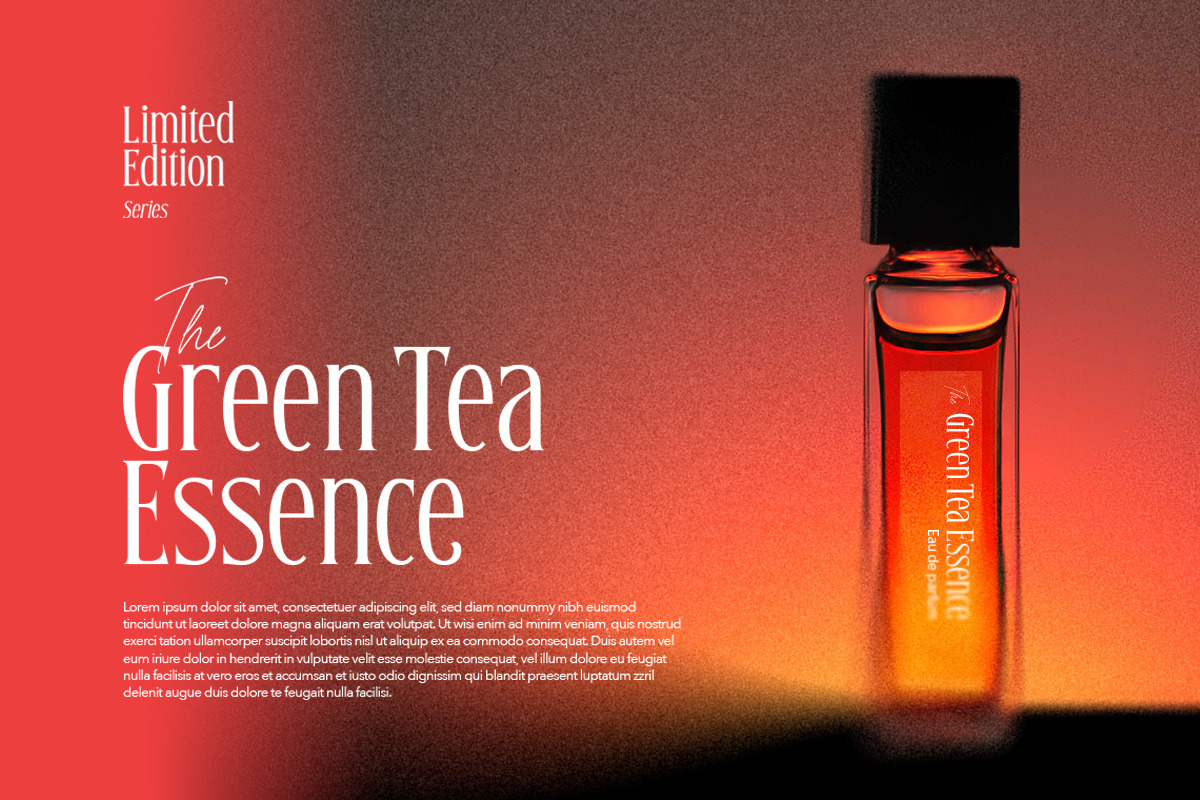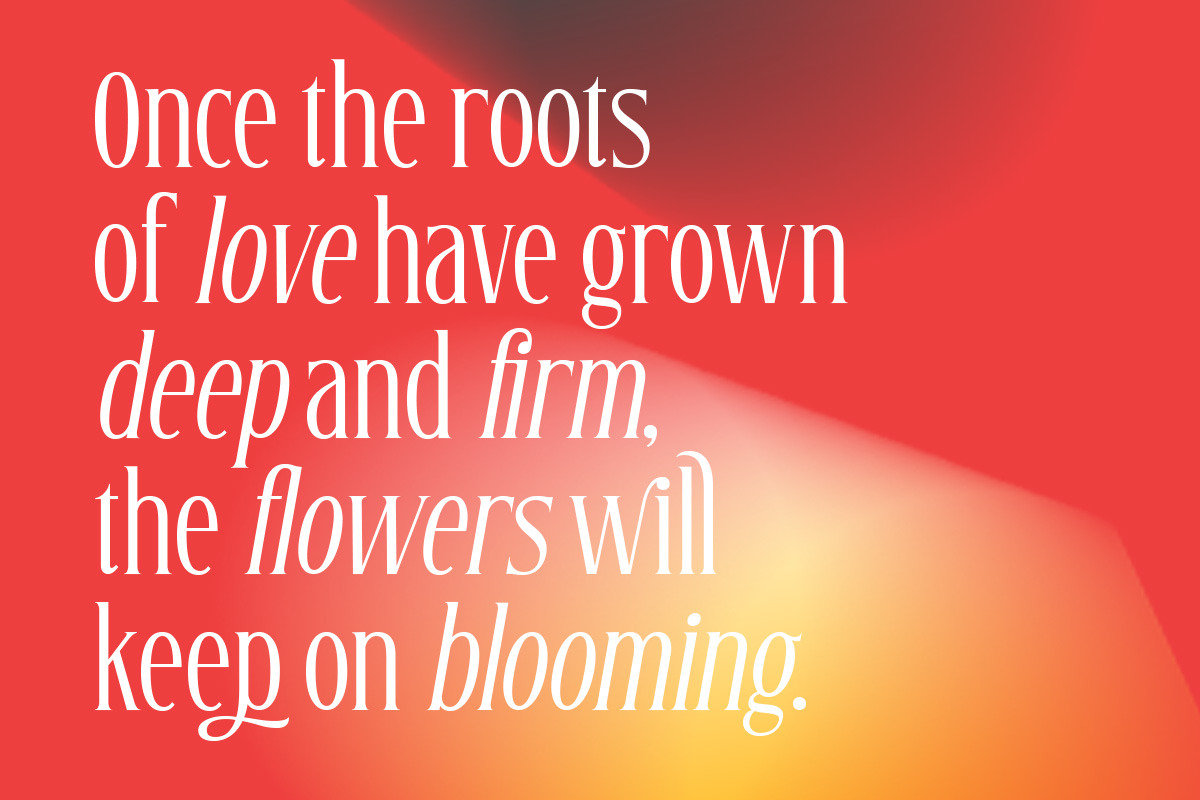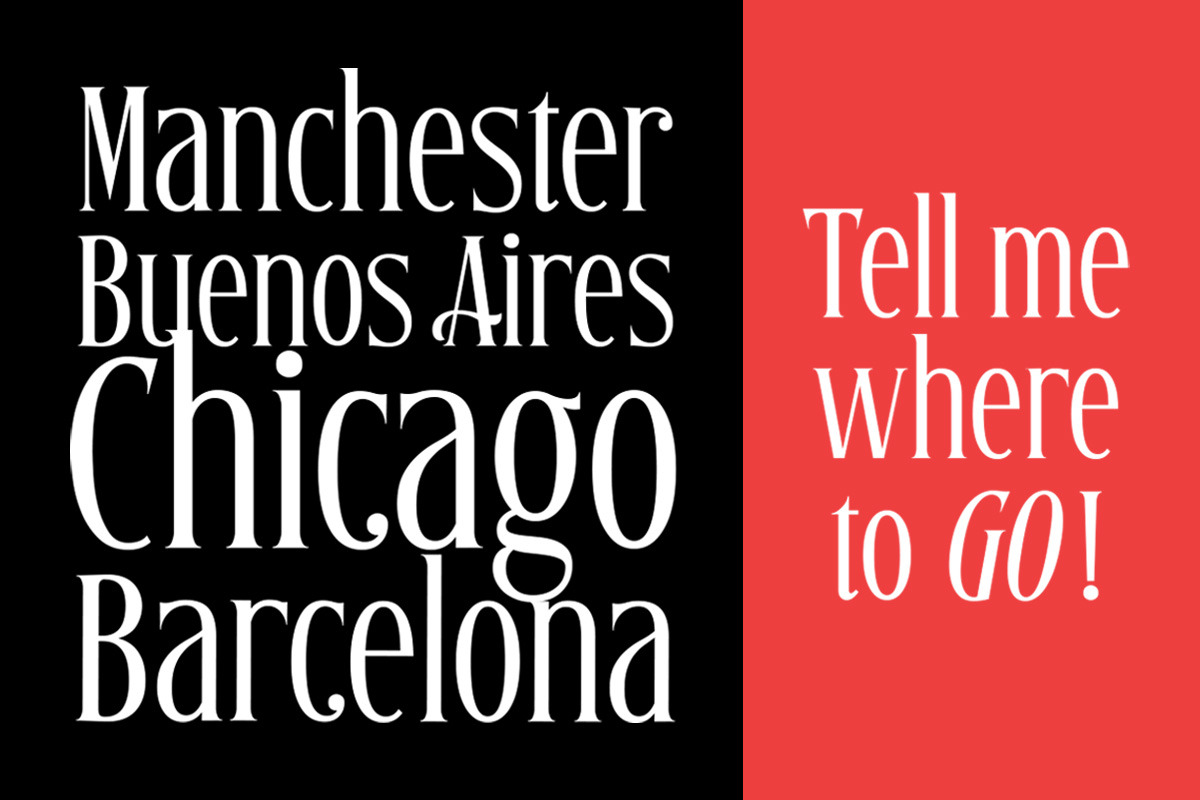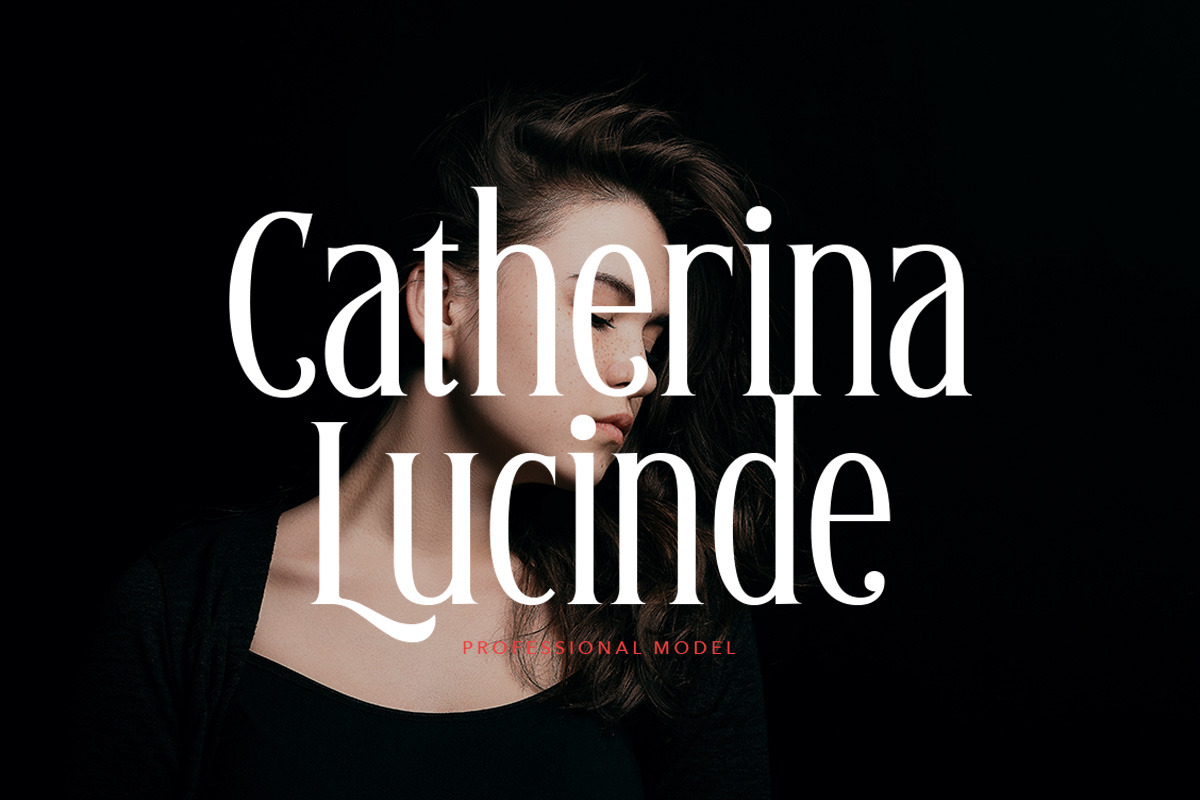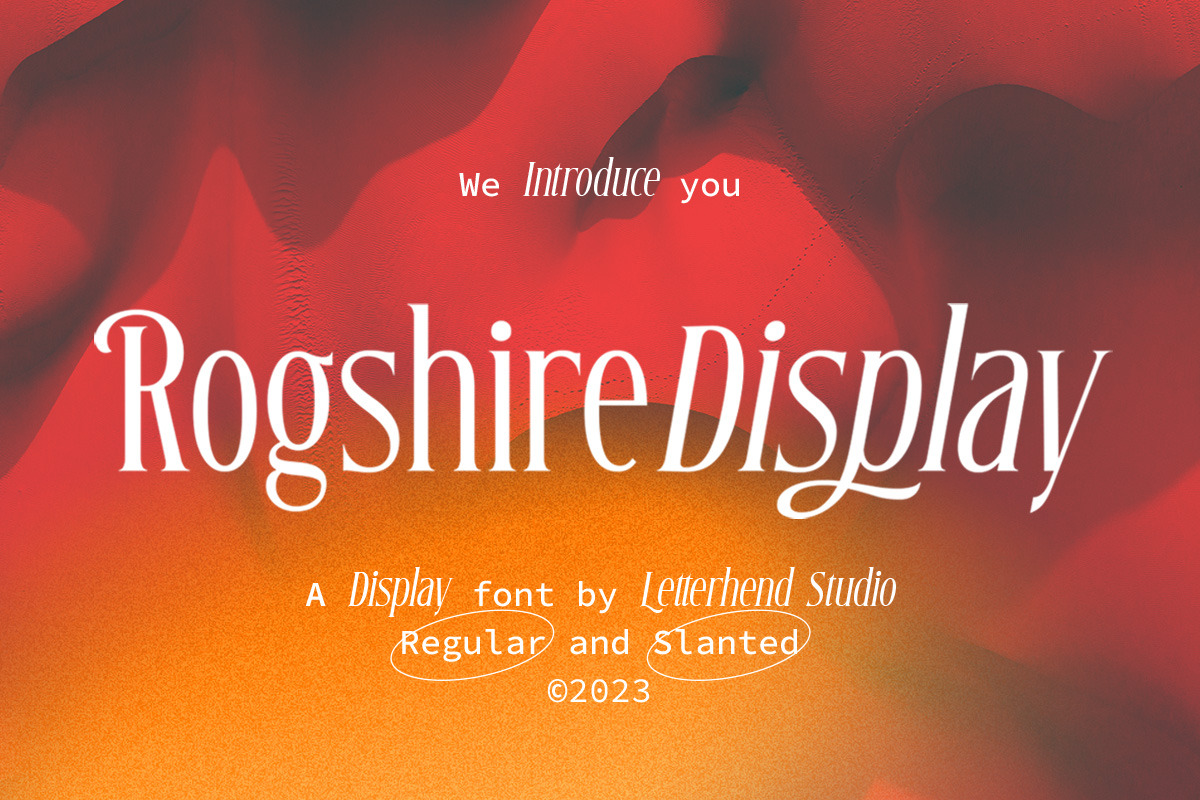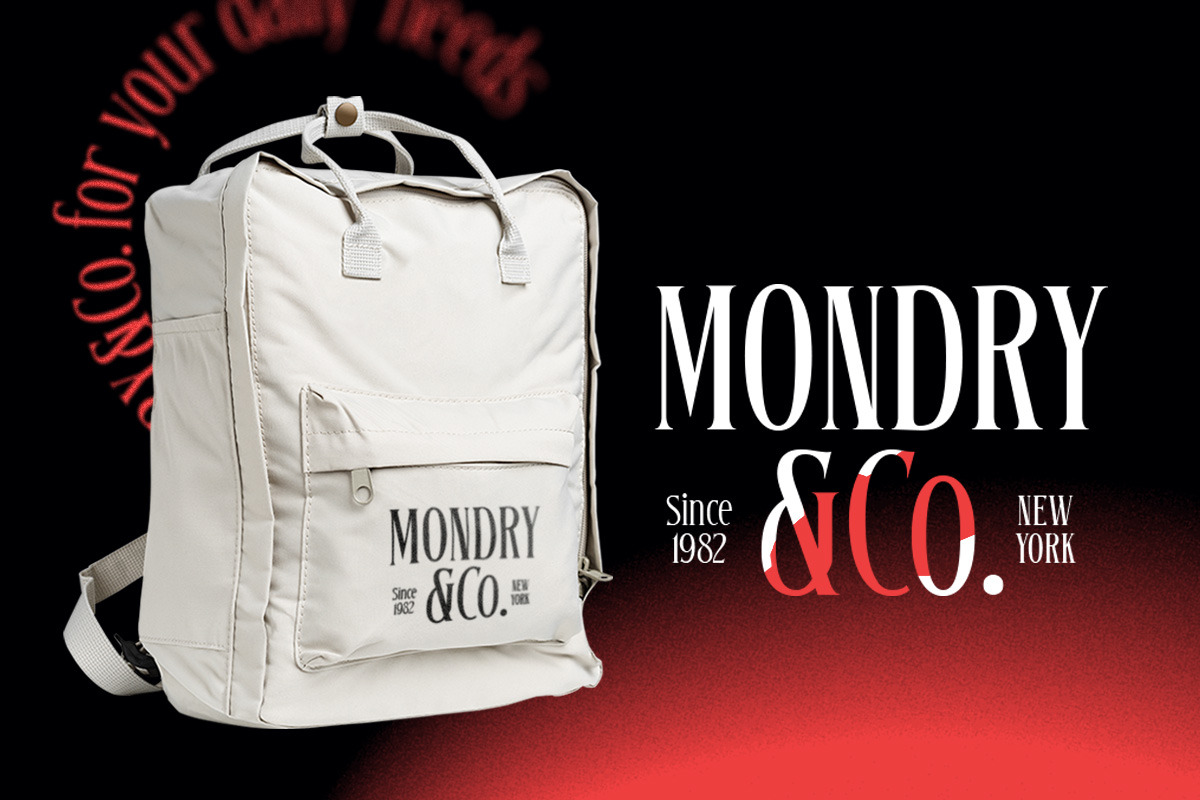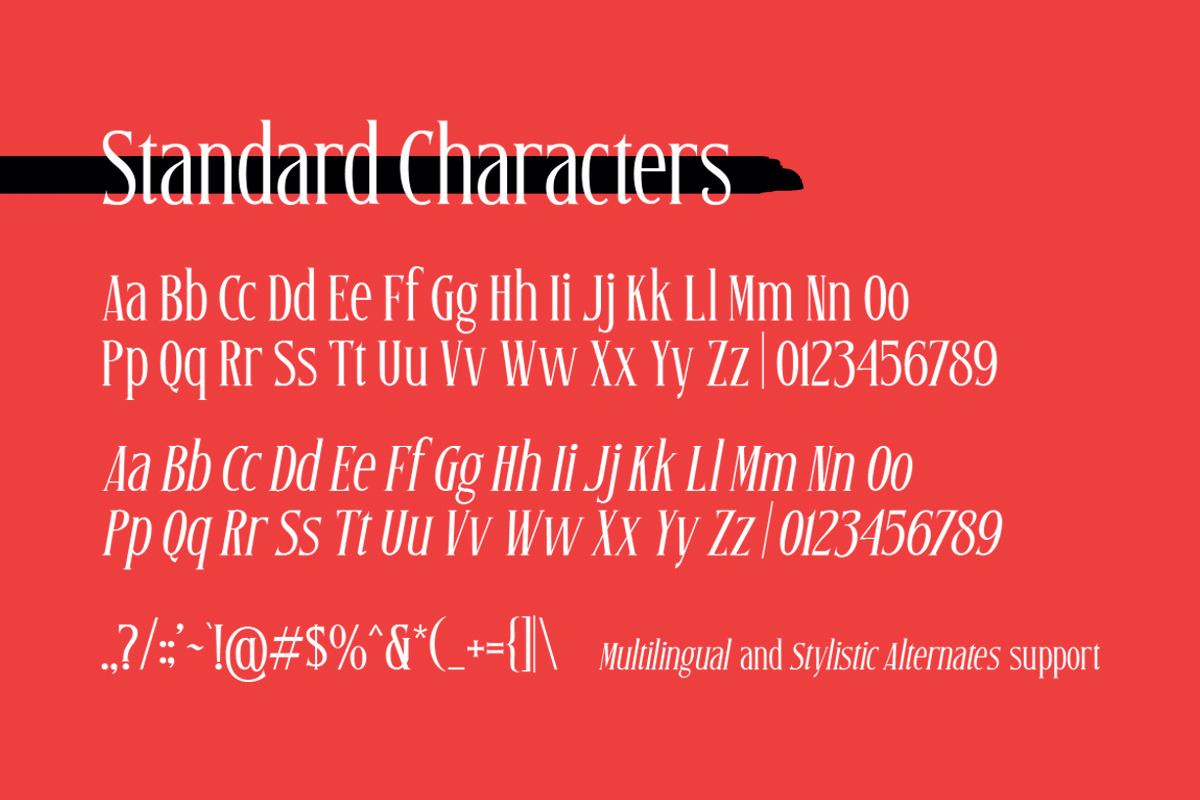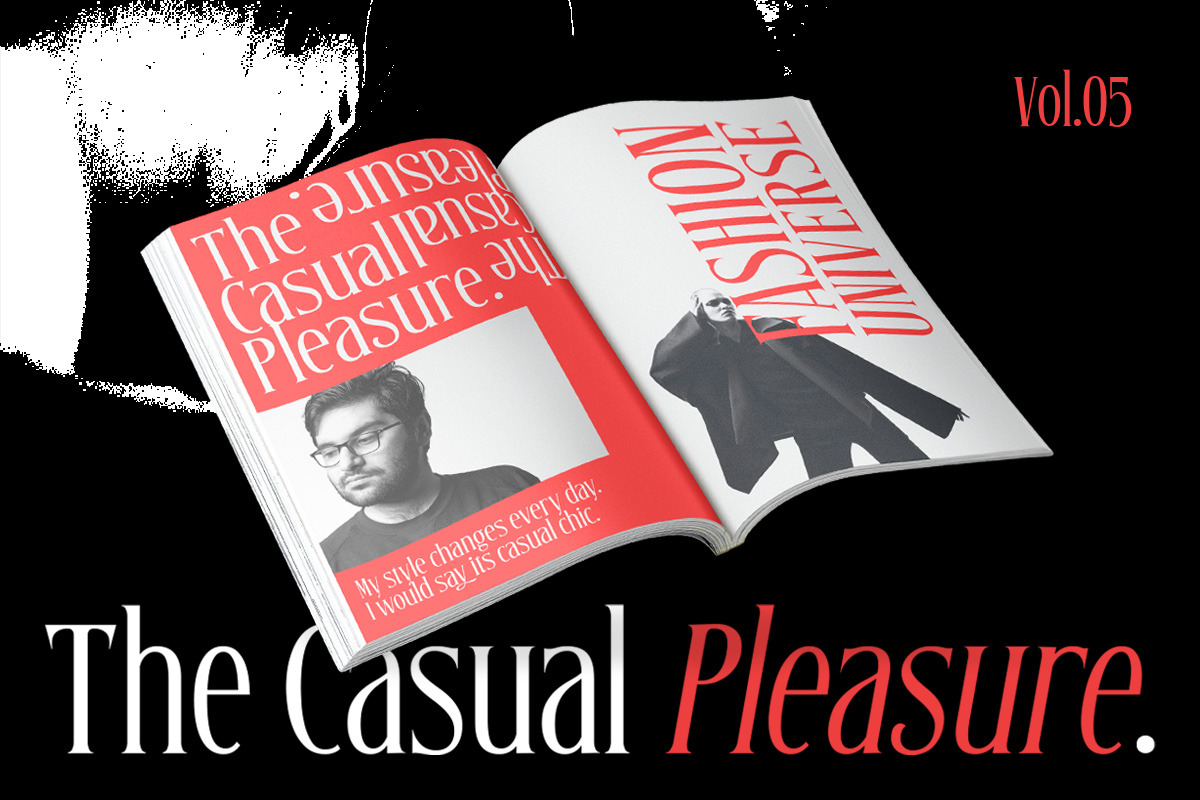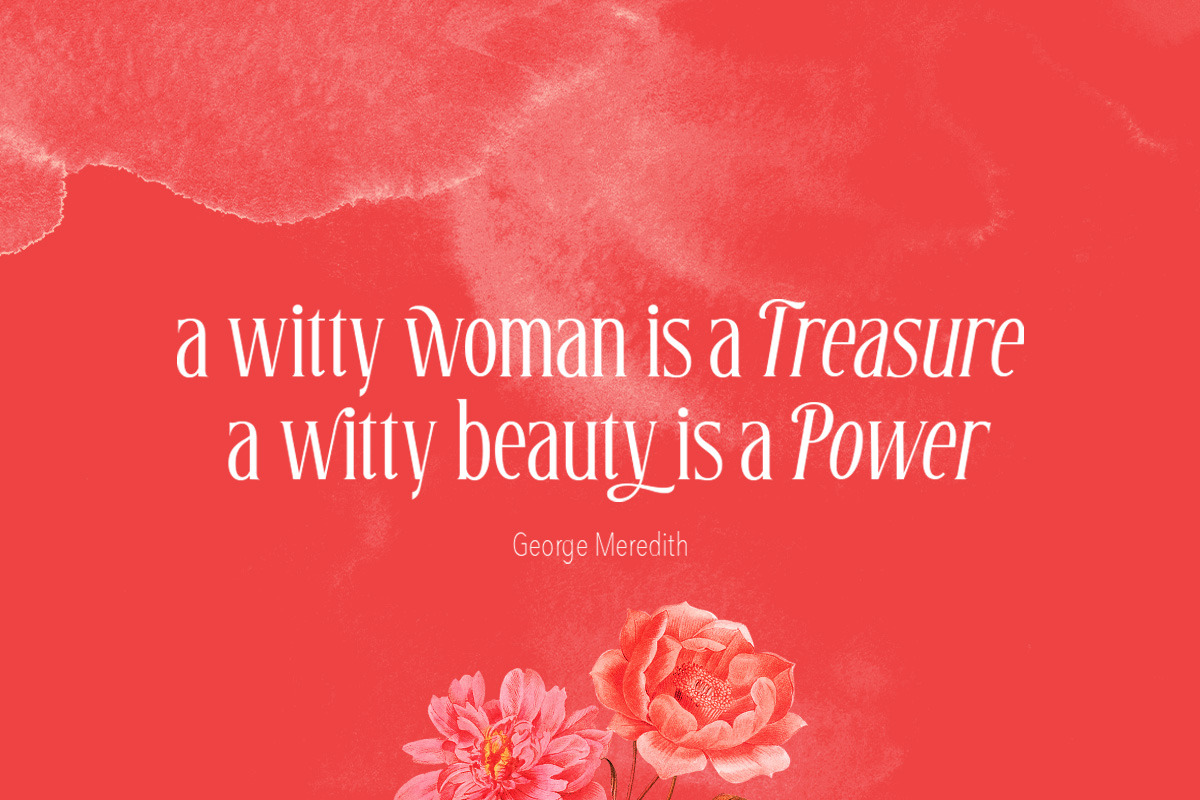
Roghsire - Display Font
Introducing, Roghsire .A stylish displa font with chic & classic looks. This typeface has been made carefully to make sure its premium quality and luxury feel. It comes with Slant Version. Very suitable for logo, headline, tittle, and the other various formal forms such as invitations, labels, logos, magazines, books, greeting / wedding cards, packaging, fashion, make up, stationery, novels, labels or any type of advertising purpose.